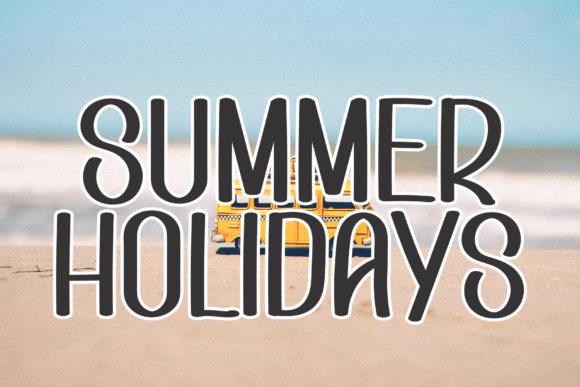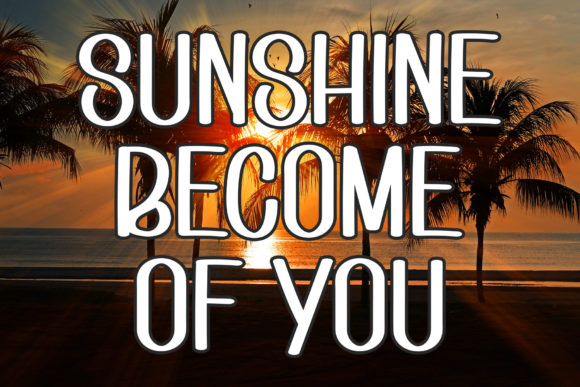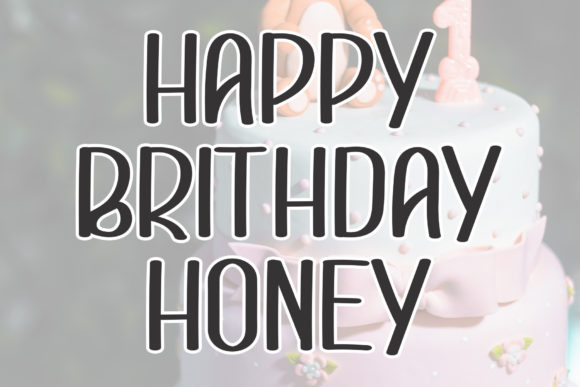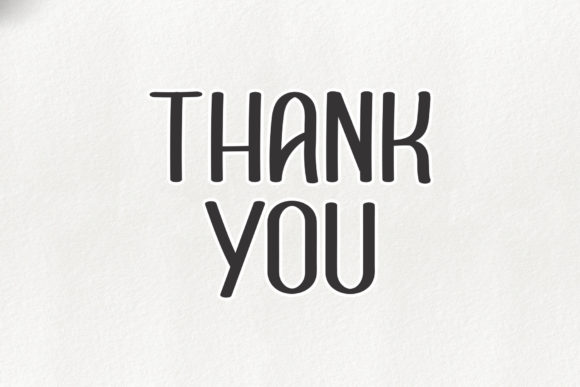
Introduction to Smartline Font
Have you ever been scrolling through social media, and suddenly a beautiful invitation or stunning graphic catches your eye? For many designers, that’s the moment when inspiration strikes. For those who crave that perfect aesthetic, we’re excited to introduce you to the Smartline Font, a game-changing design resource that’s about to take your creative projects to the next level.
This thin lettered and simple script font is more than just a pretty face – it’s a versatile tool that can elevate any design. Whether you’re creating gorgeous wedding invitations, beautiful stationery art, or eye-catching social media posts, the Smartline Font is sure to make a lasting impression.
Key Features of Smartline Font
- Designed with a clean and modern aesthetic, perfect for use in logos, branding materials, and digital products.
Honest Review: Smartline Font
As a designer, I’m always on the lookout for high-quality design resources to elevate my creative projects. Recently, I came across the Smartline Font, and I’m excited to share my honest review with you.
Here’s what works well: ✨ The Smartline Font has a clean and modern design that’s perfect for a wide range of creative projects. The font is highly legible, even at small font sizes, making it ideal for digital designs. I also appreciate the transparent background, which allows for seamless integration with other design elements.
- Perfect for digital designs
- Various weights and styles available
However, there are a few limitations: ⚠️ The font is not as extensive as some other popular font families, and the character set is somewhat limited. Additionally, the font may not be suitable for print designs that require a high level of precision and detail.
Overall, I’m impressed with the Smartline Font, and I would definitely recommend it to fellow designers looking for a high-quality, free design resource. Just be aware of the limitations, and use it for the right kind of project.
Smartline Font
The Smartline Font is a high-quality design resource ideal for creative projects that require a touch of sophistication and elegance. With its clean and modern design, this font is perfect for various applications, from branding and advertising to publishing and editing.
Tips for Getting the Most Out of Smartline Font
To get the most out of the Smartline Font, experiment with different font sizes, colors, and combinations to achieve the desired effect. You can also use the font in conjunction with other design elements, such as graphics and images.
The Smartline Font is ideal for a variety of creative projects, including:
- Branding and advertising
- Publishing and editing
- Designing business cards and resumes
- Creating digital products and courses
With its high-quality design and transparent background, the Smartline Font is a valuable addition to any design library.